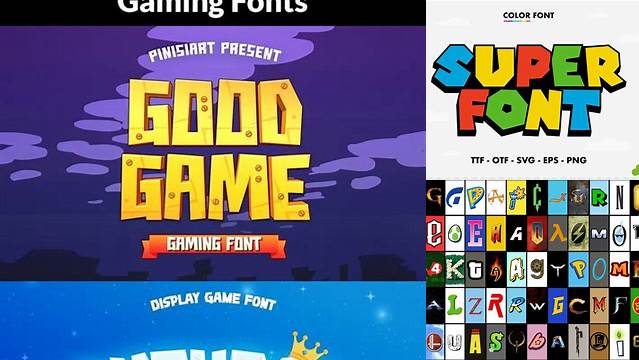
Video Game Fonts: A Reddit User's Guide
Introduction: Why Video Game Fonts Matter
Alright, gamers, let's talk about something that often goes unnoticed but is absolutely crucial to the gaming experience: video game fonts. We're talking about the text you see on your screen β the health bars, the quest logs, the dialogue, the menus, and everything in between. These seemingly simple arrangements of letters and numbers are not just about conveying information; they're a key part of a game's overall aesthetic and atmosphere. Think about it: a horror game uses a completely different font style than a vibrant, cartoonish platformer, right? That's because fonts are powerful tools that help to establish the tone, style, and even the genre of a game. They contribute to immersion and make the game feel more complete and polished. In this article, we'll be diving deep into the world of video game fonts, exploring what makes them so important, how they're chosen, and, of course, what the Reddit community has to say about it all. We will cover the importance of video game fonts and its role in enhancing the gaming experience. We'll also explore common font choices and some resources for finding and using them. So, whether you're a game developer, a font enthusiast, or just a curious gamer, you're in the right place. Get ready to level up your font knowledge! This article is going to explore the world of video game fonts, explaining their significance, the popular choices used, and how the Reddit community weighs in on them. Fonts in video games aren't just about readability. They're a crucial piece of the artistic puzzle, setting the tone, conveying information, and enhancing the overall experience. The right font can draw you into a game's world, making it feel more immersive and engaging. The wrong font, on the other hand, can pull you right out, breaking the illusion. Understanding the basics of font design and how they apply to the gaming world will give you a whole new appreciation for the details that make a game great. Fonts are so much more than just letters on a screen. They are a vital part of any visual media. They represent an integral part of the gaming experience, significantly contributing to the mood and message a game tries to convey. The right choice of font can drastically enhance a gamer's overall experience, adding another layer to the game. A good font selection can help build the atmosphere, guide the players, and keep them immersed in the world the game creates. Therefore, understanding the importance of fonts in the context of video games is crucial for both developers and players alike.
The Role of Fonts in Game Design: Beyond Readability
Okay, let's be real β readability is, like, the bare minimum requirement, right? You need players to be able to actually read the text on the screen. But video game fonts do so much more than just make the words legible. They are a fundamental element of game design, playing a crucial role in conveying the game's style, atmosphere, and even its underlying themes. Choosing the right font is a creative decision, much like selecting color palettes, character designs, or music. When you think about a game like Minecraft, you immediately picture that pixelated font, right? Itβs as iconic as the game itself, perfectly complementing its blocky world and retro aesthetic. The font is the key to creating a sense of familiarity and visual cohesion. It helps to reinforce the game's identity. Now, picture Bloodborne, the gothic horror masterpiece. The font choices there are likely much different, perhaps using something gothic and ornate, which contribute to the game's unsettling and mysterious feel. Each font choice adds to the experience, setting the appropriate mood. Font choice is essential because it has the potential to communicate the game's message and appeal to its target audience. The choices you make in a game design are a creative and artistic exercise. Fonts, like all design decisions, contribute significantly to the game's identity, atmosphere, and genre. This is a great example of the power of font selection. Developers need to think carefully about which font to use for the game. Each font choice significantly affects the player's immersion and enjoyment. Good readability is just the starting point. Consider how the font enhances the game's world, theme, and emotional impact. Think about the tone that the font sets and whether it aligns with the game's overall message. Good font choices are made during the design process to help improve a game's quality. Fonts in video games do more than simply display text, they greatly contribute to the style of the game, and if done right, they help to improve the players' experience and enjoyment of the game.
Common Font Choices and Their Significance in Video Games
Alright, let's dive into some of the most common font types you'll see in video games and what they bring to the table. Think of these as your font toolbox, ready to use in any project.
- Sans-serif fonts: These are your clean, modern fonts, like Arial, Helvetica, or Futura. They're super readable, so you'll often see them used for menus, user interfaces (UI), and anything that needs to be clear and concise. They convey a sense of professionalism, modernity, and often work well in futuristic or tech-focused games.
- Serif fonts: These fonts have little strokes at the ends of each letter (those are the serifs). Think Times New Roman or Georgia. They can add a touch of elegance and classicism. Often used in games with historical settings, fantasy worlds, or to make text feel more formal or established. You could see them in a fantasy RPG, or a game set in a past era.
- Pixel fonts: These are the fonts that evoke pure nostalgia! Like the Minecraft font, or something similar. Pixel fonts are blocky and reminiscent of classic arcade games and early consoles. They're perfect for retro-style games, indie titles, or anything that wants to have a vintage feel. Pixel fonts really embrace that sense of retro gaming.
- Display fonts: This is a wide category. These fonts are designed for headings, titles, and anything that needs to grab your attention. They can be anything from stylized fonts to hand-drawn lettering. They add personality and character to a game.
Each font choice has a role. The significance of a font choice can greatly change the mood of the player. If you choose a font that isn't the right fit, the game may not be as great as it could be. Font selection is an important aspect of design. Choosing the proper font will enhance the game's atmosphere. In addition, it also enhances the player's experience. From serifs to sans-serifs to specialized fonts, there is a vast selection of fonts to choose from. The best games utilize a cohesive selection of fonts that fit the theme of the game.
- Font Size and Readability: Test your fonts at different sizes. Remember, players will be viewing your game on a variety of screens, from tiny phone screens to massive TVs. Make sure your text is always legible, even from a distance. Good readability is king.
- Font Pairing: Don't just pick one font and use it everywhere. Think about pairing different fonts together to create visual interest and hierarchy. Consider using a sans-serif for the main UI and a serif font for longer blocks of text, for example. Make sure that the fonts complement each other, not clash.
- Font Customization: Some font files can be tweaked to better fit your game's needs. This allows you to customize the font to align perfectly with your visual aesthetics.
As you start building your game, you will begin the search for the correct font. You'll need to get started with font selection. There are many sites where you can get font files. Font choice is important because you must consider things like readability, design, and commercial usage. You will need to make sure that the fonts you use work well together, and they are easy to read. In short, Font selection is crucial for building the right atmosphere for your game. Remember to consider the target audience. If you're targeting younger players, the font selection might be different than a more mature game. Considering the technical aspects of fonts is also important. Different fonts can have different impacts on performance, especially in mobile games. Consider the file size of the font and optimize the selection for the target platform. Good font selection is often a creative and technical balancing act. When selecting the right font, you will add the perfect touch to your game.
Conclusion: Level Up Your Font Game
So, there you have it, a deep dive into the wonderful world of video game fonts! Remember, fonts are more than just words on a screen β they're an integral part of the game's identity, atmosphere, and overall player experience. By understanding the significance of font choice and using the resources available, you can significantly enhance your game's impact. Keep exploring, experimenting, and, most importantly, have fun! Remember that the right font can make or break your game. So choose wisely, and your game will surely be something great. The impact of font choice goes beyond mere readability and contributes to the artistic vision of your game. By keeping this in mind, you can create immersive and memorable gaming experiences. The importance of font selection is important for both developers and players. The world of video game fonts offers a lot of opportunities to build a great experience. So, embrace the power of fonts and level up your font game.